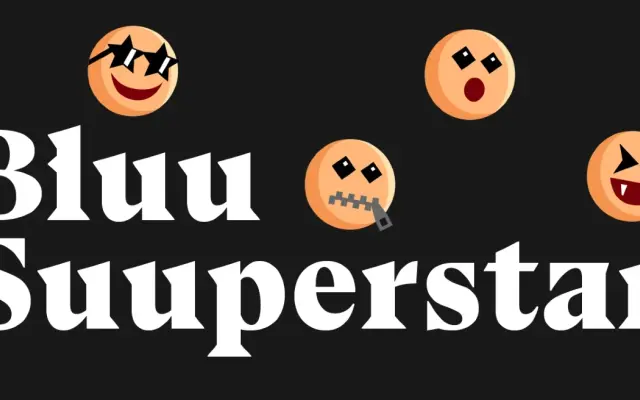
Bluu Suuperstar
A brutalist serif by Jean Baptiste Morizot and Gaëtan Baehr that grafts sharp triangular wedge serifs and diamond dots onto a Garalde skeleton, with italics drawn on an independent calligraphic model.
The uprights retain the proportional rhythm of the Garalde tradition whilst serifs terminate in abrupt triangular wedges and dots resolve into diamonds, creating a typeface that reads both historically grounded and visually confrontational. Four static weights from Regular to Black are supplied alongside two variable fonts, covering a wide range from text to headline use. The italics are drawn independently from the uprights, following a dynamic calligraphic logic rather than simply slanting the roman forms.
Rooted in the Garalde tradition with high x-height and rhythmic structure, but distinguished by sharp triangular wedge serifs and diamond-shaped dots that push it firmly into brutalist display territory.